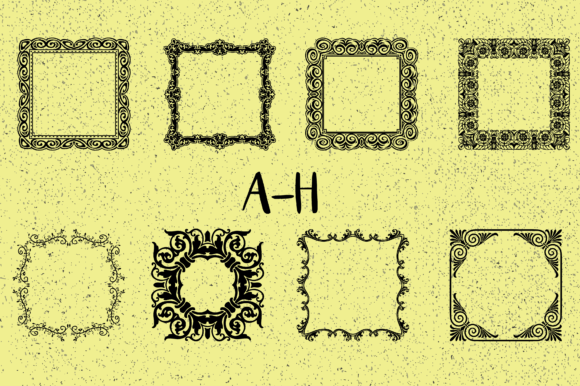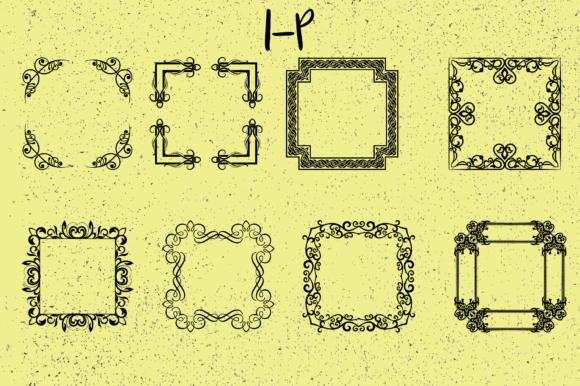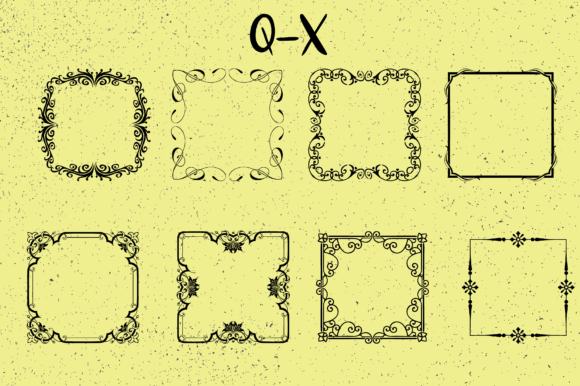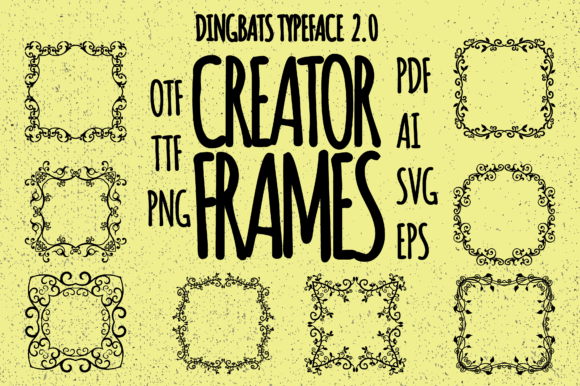
Introduction to Frames Creator 2.0 Font
Frames Creator 2.
0 is a highly detailed and useful dingbats font It is suitable for any branding project like logo, t-shirt printing, sporting design, and many more.
Frames Creator 2.0 Font offers exceptional quality and versatility, making it a valuable addition to your design toolkit. Whether you’re creating for personal projects or commercial use, Frames Creator 2.0 Font delivers professional results.